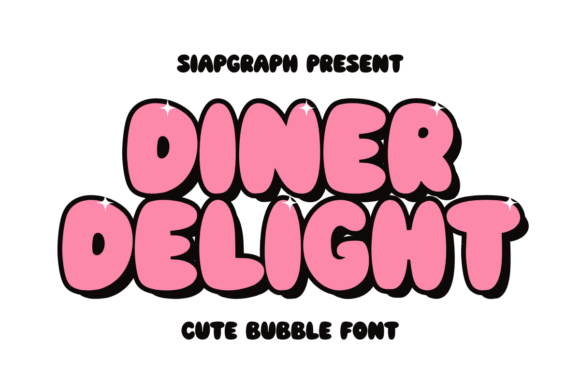
Diner Delight Font: A Playful Bubble Font for Retro-Fun Designs
Are you looking for a font that can add a touch of retro fun to your designs? Look no further than the Diner Delight font! This playful bubble font is perfect for creating nostalgic designs for food menus, branding, and more. In this article, we’ll take a closer look at the Diner Delight font, its features, and how you can use it to create amazing designs.
What is Diner Delight Font?
Diner Delight is a playful bubble font that features rounded, bouncy letters and a cheerful style. The font is designed to evoke a sense of nostalgia and fun, making it perfect for designs that require a retro touch. With its unique and eye-catching style, Diner Delight is sure to grab attention and leave a lasting impression.
Key Features of Diner Delight Font
So, what makes Diner Delight font so special? Here are some of its key features:
- Playful bubble style: The font features rounded, bouncy letters that give it a playful and fun feel.
- Retro aesthetic: The font is designed to evoke a sense of nostalgia and retro fun, making it perfect for designs that require a vintage touch.
- Cheerful style: The font has a cheerful and upbeat style that’s sure to grab attention and put a smile on people’s faces.
- Versatile: The font is versatile and can be used for a wide range of designs, from food menus to branding and more.
How to Use Diner Delight Font
Now that we’ve covered the features of Diner Delight font, let’s talk about how you can use it to create amazing designs. Here are some ideas to get you started:
Food Menus
Diner Delight font is perfect for creating nostalgic food menus that will make your customers feel like they’re dining in a retro diner. Use the font to create eye-catching menu boards, flyers, and brochures that will make your food stand out.
Branding
The Diner Delight font is also great for branding and packaging. Use the font to create retro-style logos, labels, and packaging that will make your products stand out on store shelves.
Signage
The font is also perfect for creating eye-catching signage that will grab attention and draw people in. Use the font to create retro-style signs for your business, event, or promotion.
Tips for Using Diner Delight Font
Here are some tips for using Diner Delight font to create amazing designs:
- Keep it simple: While the Diner Delight font is playful and fun, it’s still a bold font that can be overwhelming if overused. Keep your design simple and use the font sparingly to create maximum impact.
- Pair it with other fonts: The Diner Delight font pairs well with other fonts, such as sans-serif fonts like Arial or Helvetica. Experiment with different font combinations to create a unique look.
- Use it for headlines: The Diner Delight font is perfect for headlines and titles. Use it to create eye-catching headlines that will grab attention and draw people in.
In conclusion, the Diner Delight font is a playful bubble font that’s perfect for adding a touch of retro fun to your designs. With its rounded, bouncy letters and cheerful style, this font is ideal for creating nostalgic designs for food menus, branding, and more. Whether you’re a designer, marketer, or business owner, the Diner Delight font is a great addition to your font library.
What is the Diner Delight font?
The Diner Delight font is a playful bubble font that’s designed to evoke a sense of nostalgia and retro fun.
What is the Diner Delight font used for?
The Diner Delight font is perfect for creating nostalgic designs for food menus, branding, signage, and more.